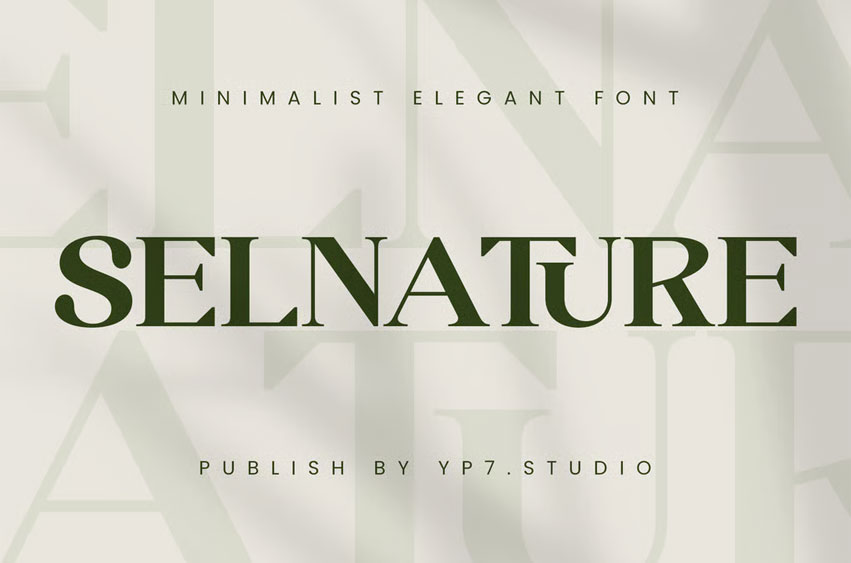
Selnature Font Minimalist Elegant Font – Selnature.
It fits in headlines, logos, posters, flyers, invitations, name cards, branding materials, print media, editorial layouts, and many more.